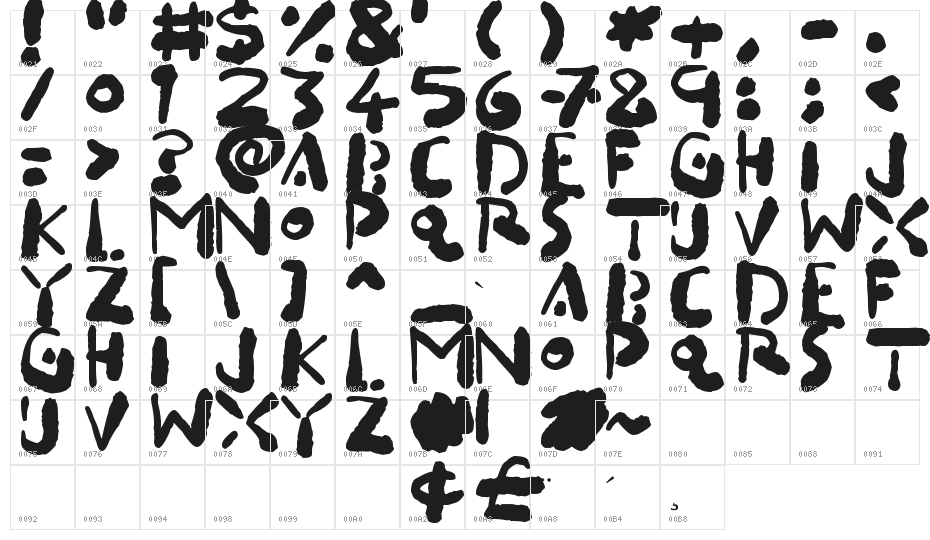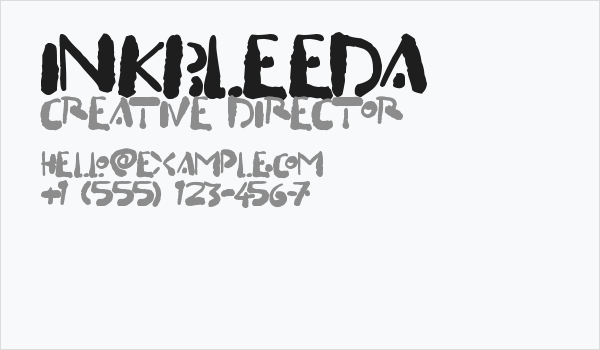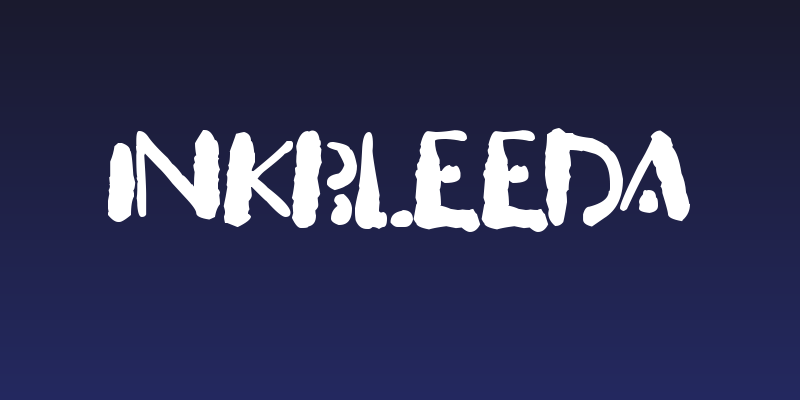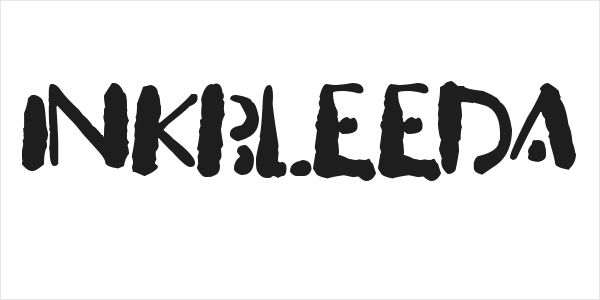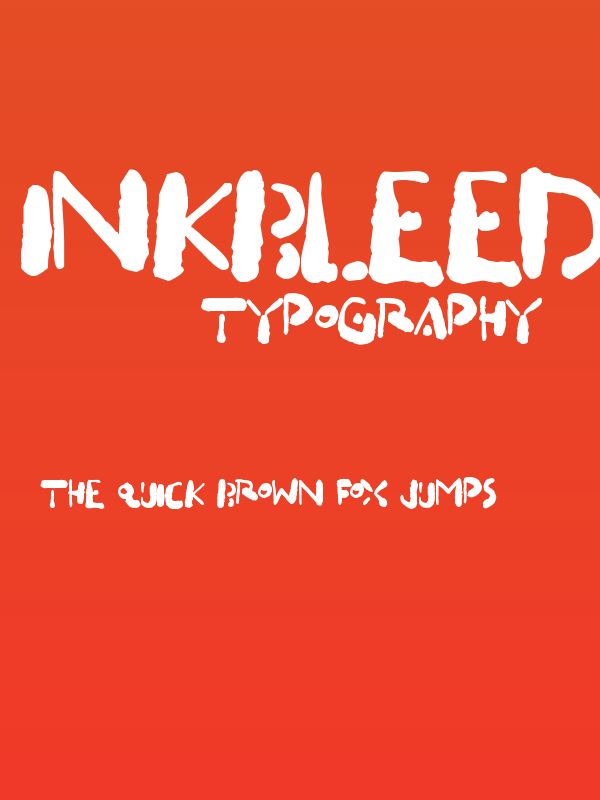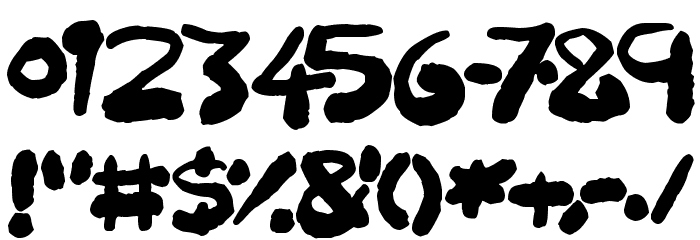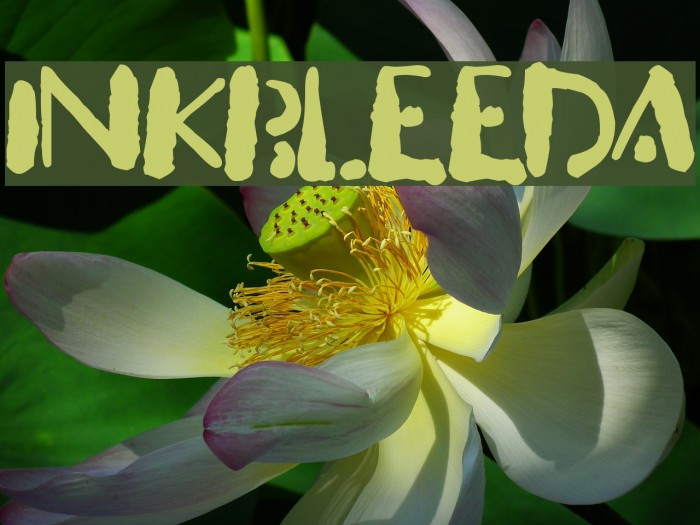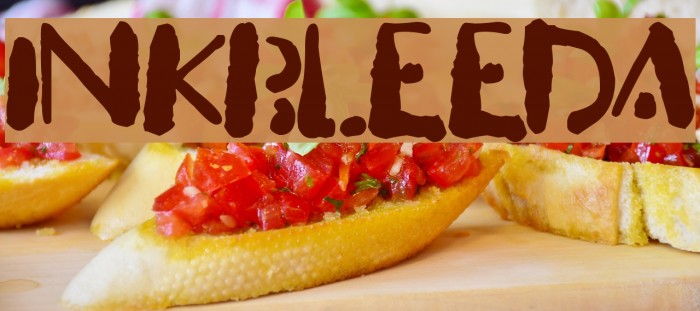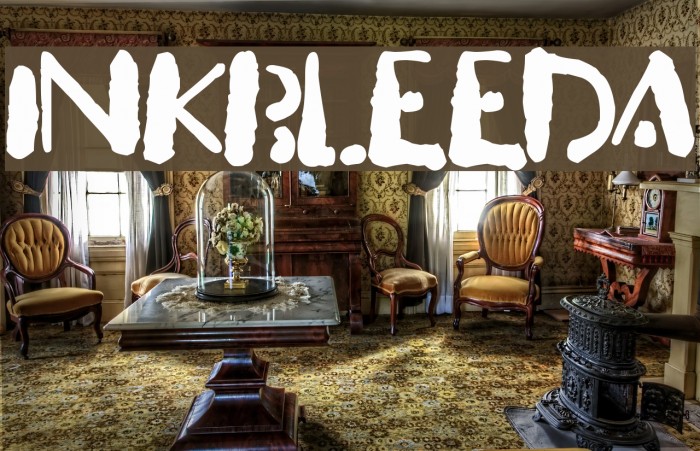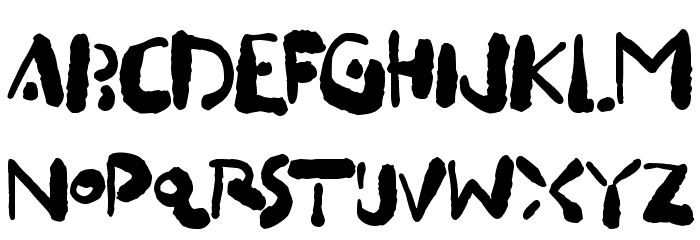
Inkbleeda Font
Inkbleeda Description
This font features a bold and expressive style, reminiscent of ink splatters or brush strokes. The characters are irregular and organic, giving a sense of movement and energy. The uppercase and lowercase letters maintain a consistent thickness, while the numbers and special characters follow the same dynamic and fluid design. This font is highly decorative, with a playful and artistic flair that makes it stand out. Its unique appearance is suitable for creative projects that require a touch of individuality and boldness.
| Overall Style | Artistic, Expressive |
| Proposed Projects | Ideal for artistic posters, album covers, creative branding, and unique invitations. |